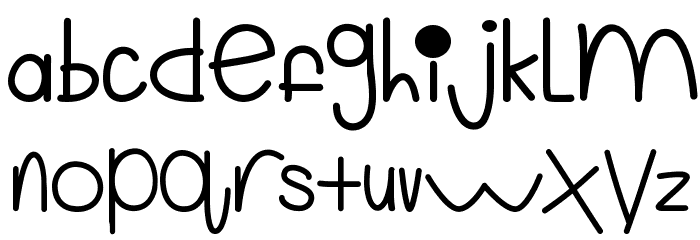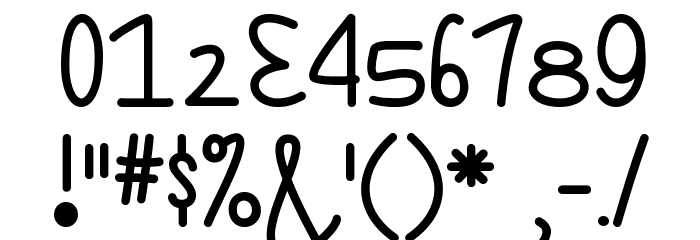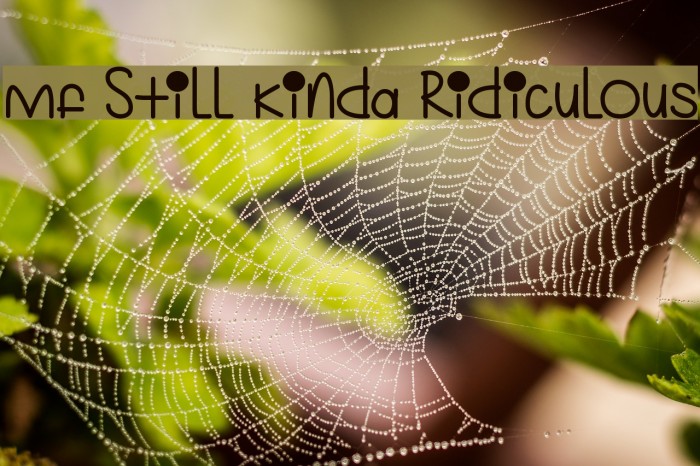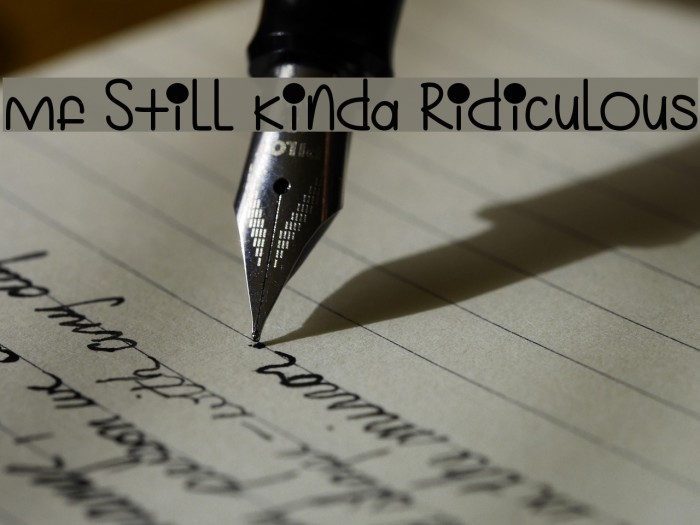
Mf Still Kinda Ridiculous Font
This playful and whimsical font features rounded, irregular strokes that give it a hand-drawn appearance. The characters are bold and have a slightly uneven baseline, adding to its quirky charm. The uppercase letters are tall and narrow, while the lowercase letters are more rounded and compact. Numbers and special characters maintain the same playful style, making this font suitable for creative and informal designs. Its unique character shapes and varying stroke widths contribute to a lively and dynamic look.
A playful, hand-drawn font with rounded, irregular strokes.
- Proposed Projects: Ideal for children's books, playful branding, greeting cards, and creative posters.